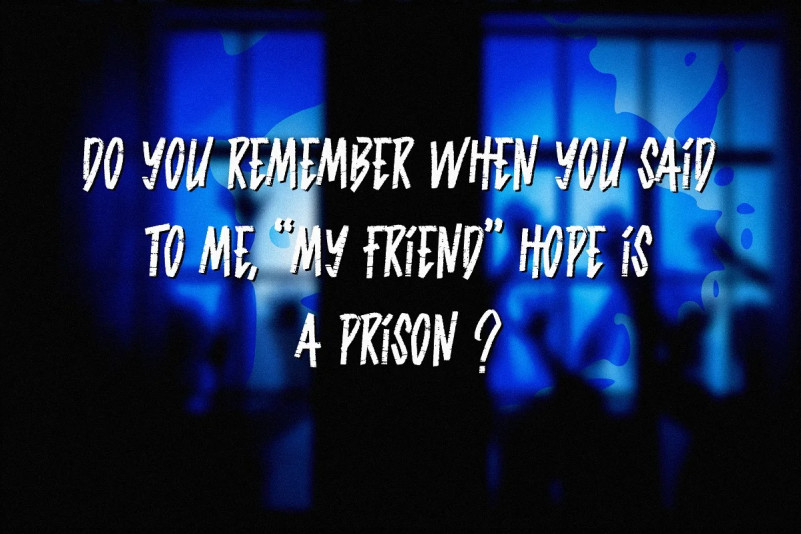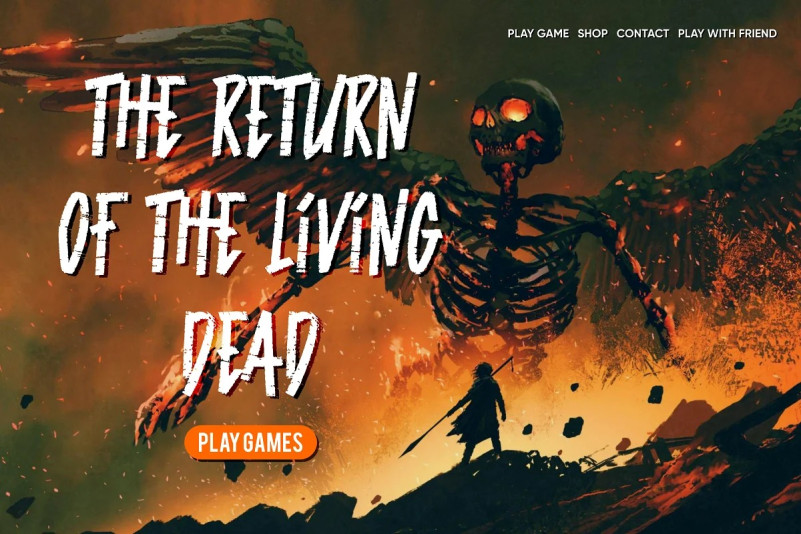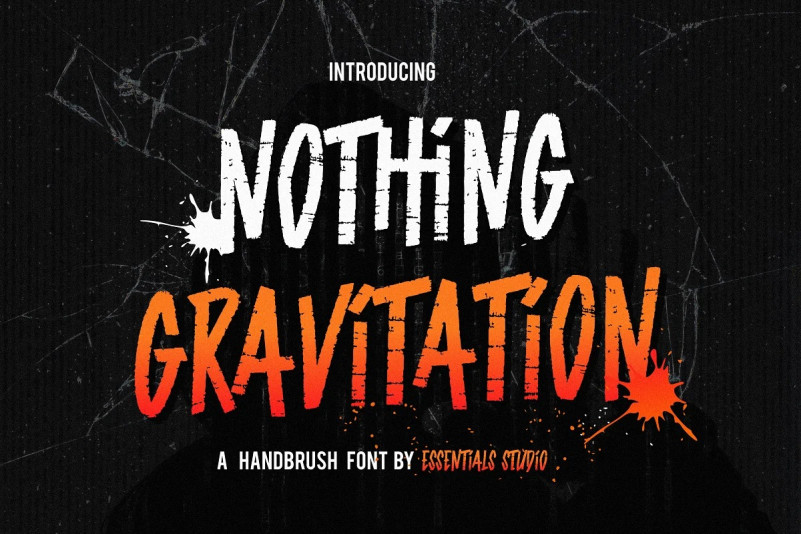
Nothing Gravitation Font
Hello Everyone, introduce our new product  Nothing Gravitation Font is a a handwritten urban style font.
Nothing Gravitation Font is perfect for product packaging, branding project, megazine, social media, wedding, or just used to express words above the background.